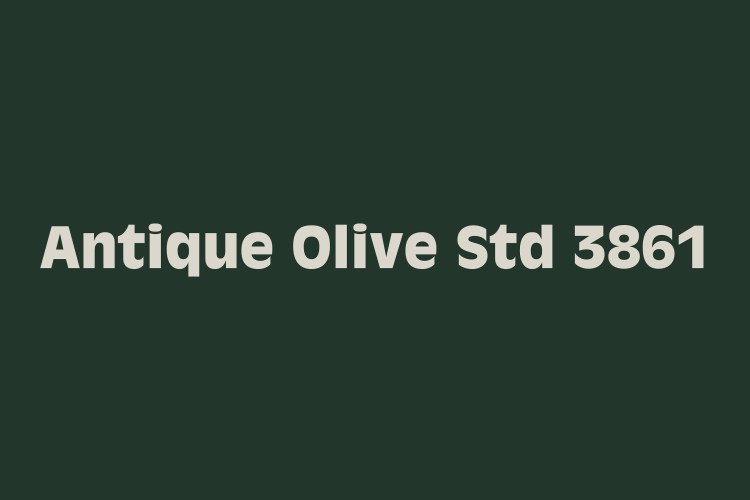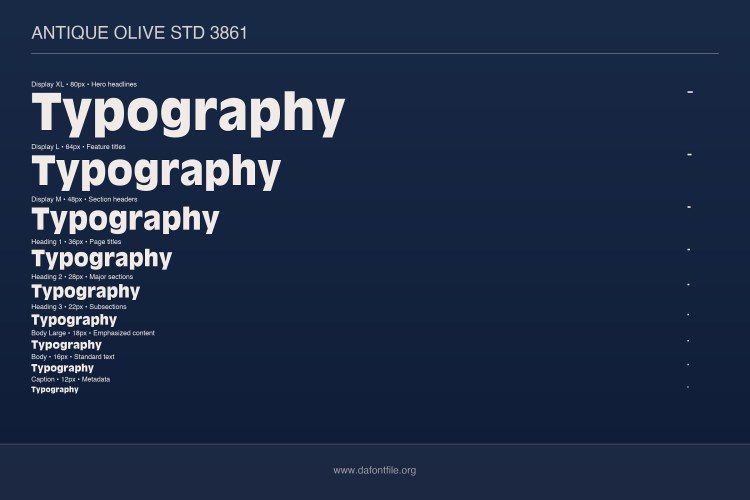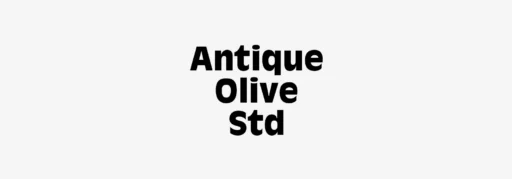
Antique Olive Std Font Family
Antique Olive Std is a bold sans serif font with soft curves and a strong look. First designed in the 1960s, it gives logos, posters, and layouts a warm style. Designers choose it to create modern work that still feels timeless and easy to read.
Where Antique Olive Std Font Family works best
Antique Olive Std Font Family keeps its shape at 14 and 16 pixels, which is where interface text actually lives. Numbers and capitals stay distinguishable in tables.
Presentations are read at a distance; a clean sans with a strong bold is the safest hierarchy you can build in a hurry.
Simple letterforms survive angles, glare and movement, so Antique Olive Std Font Family suits door signs, menus boards and exhibition panels.
What kind of work does Antique Olive Std Font Family suit?
It sits in the Sans Serif Fonts group and reads as bold, classic, modern, retro. That makes it a candidate wherever those qualities help: headings, packaging, social graphics and brand work. Set it at the size you plan to use before deciding.